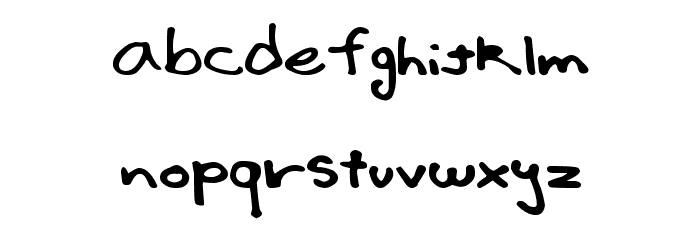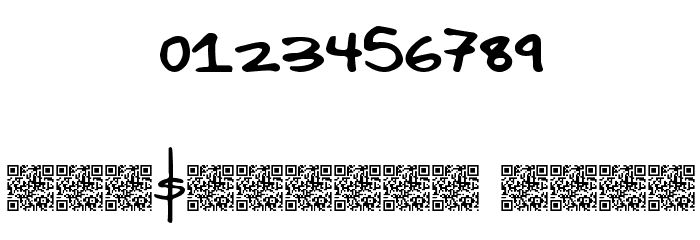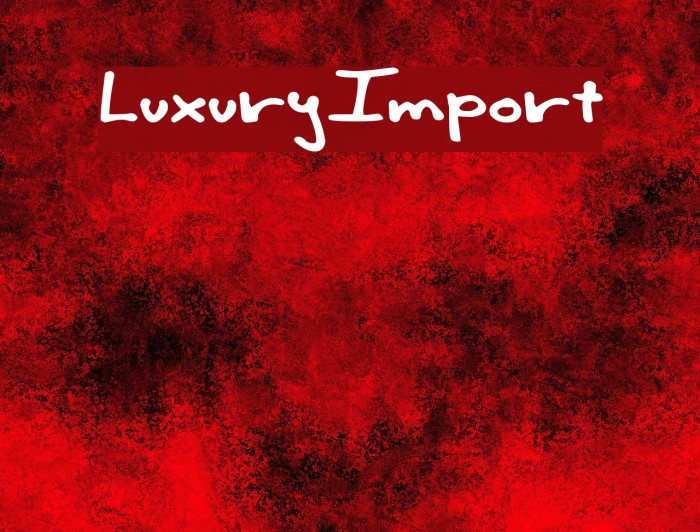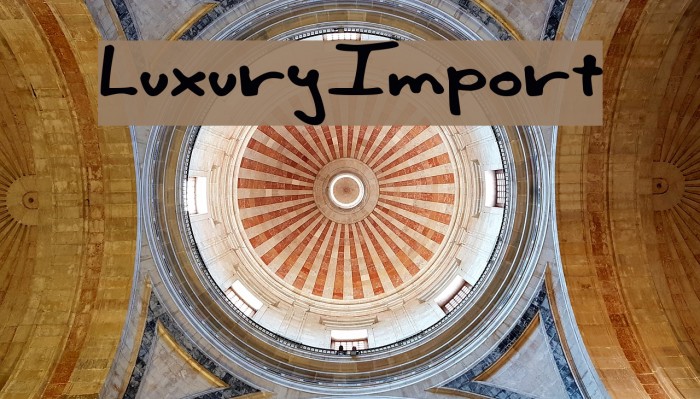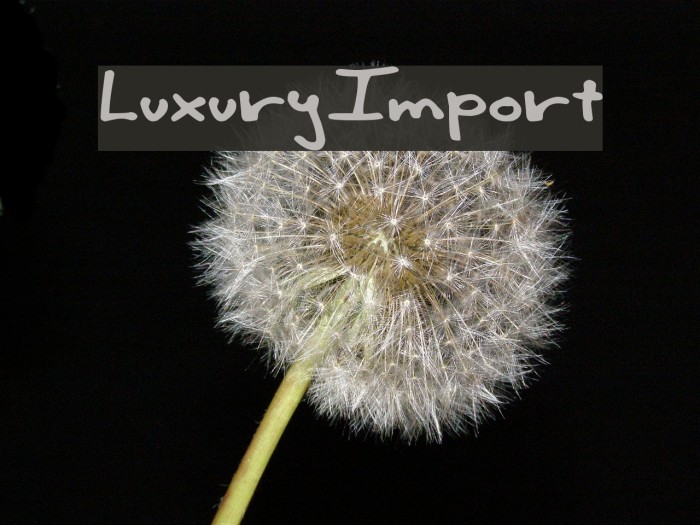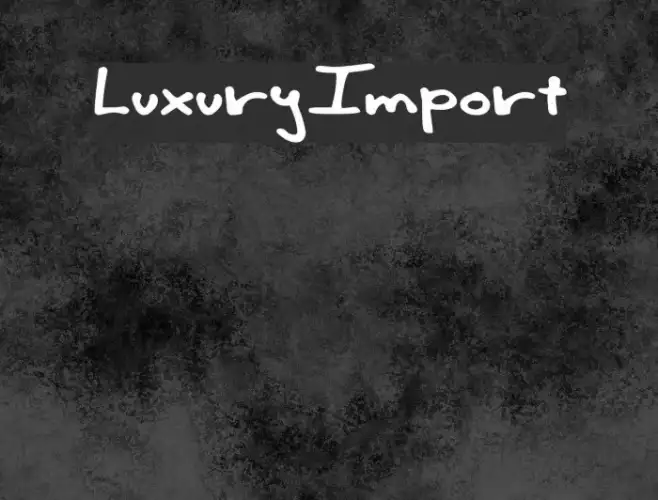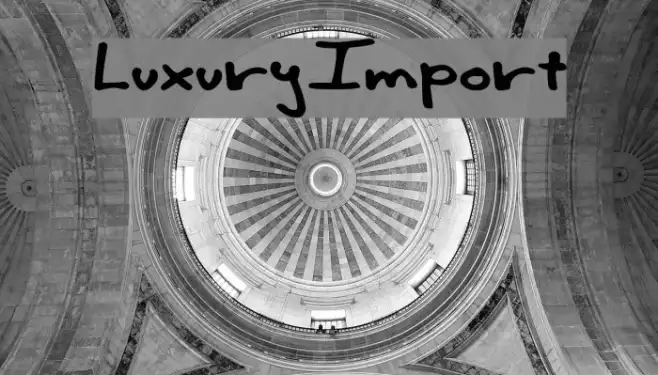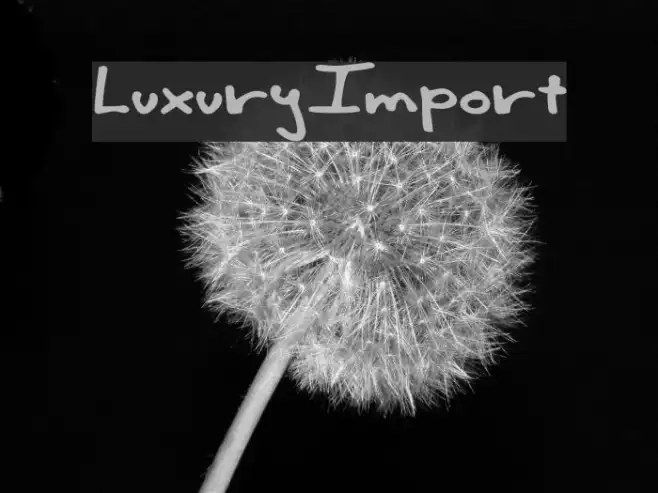
LuxuryImport Font
This font features a playful and casual handwritten style, characterized by its smooth and flowing letterforms. The uppercase and lowercase letters exhibit a consistent stroke width, giving the typeface a uniform appearance. The characters are slightly slanted, adding to the informal and relaxed feel of the font. The numerals and special characters maintain the same playful aesthetic, ensuring cohesion across all glyphs. This font is ideal for projects that require a personal touch, such as greeting cards, invitations, or informal branding.
A playful, handwritten font with smooth, flowing letterforms.
- Proposed Projects: Ideal for greeting cards, invitations, personal branding, and informal communications.
- Overall Style: Casual
- Use Case: Headlines, Informal text, Personal projects